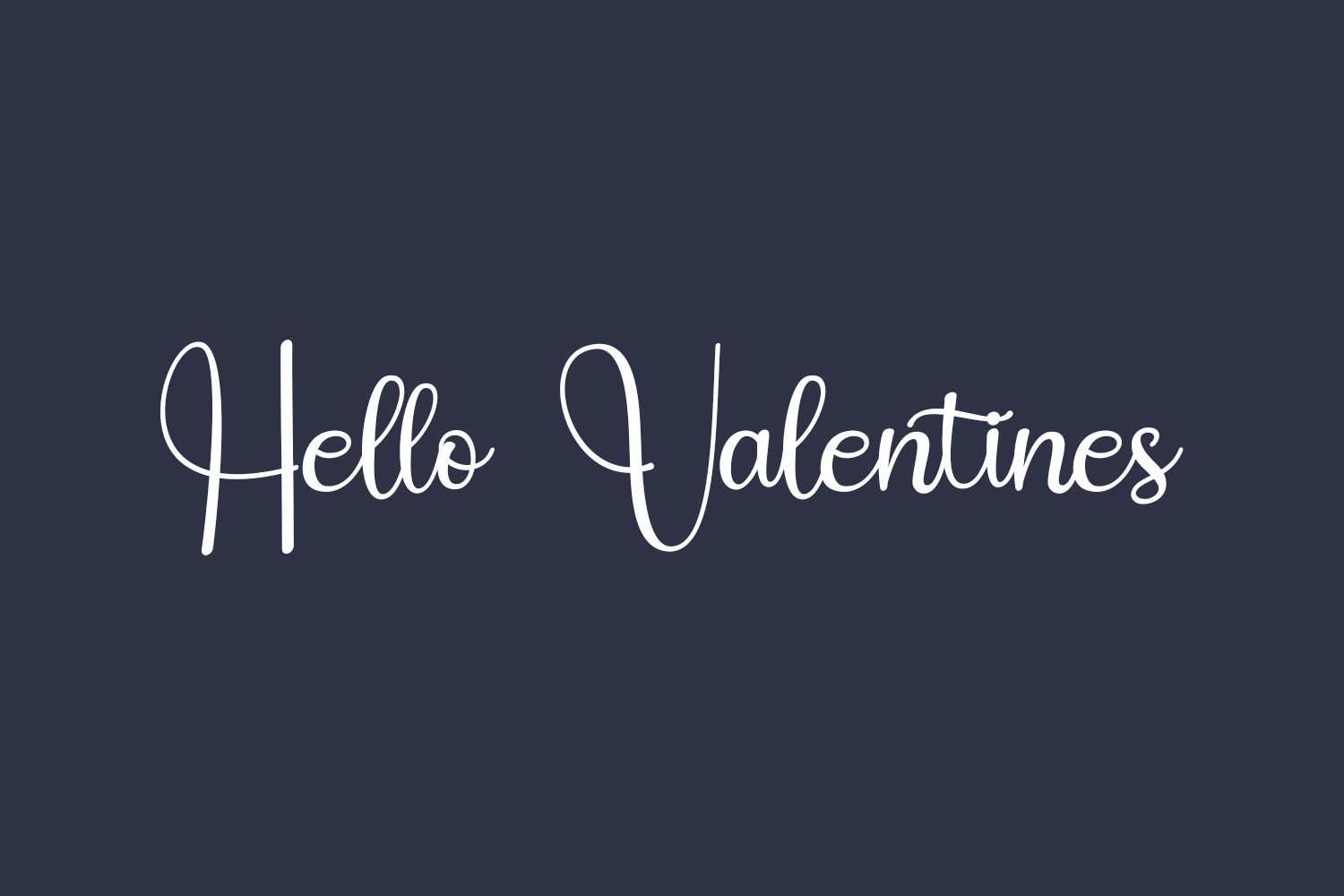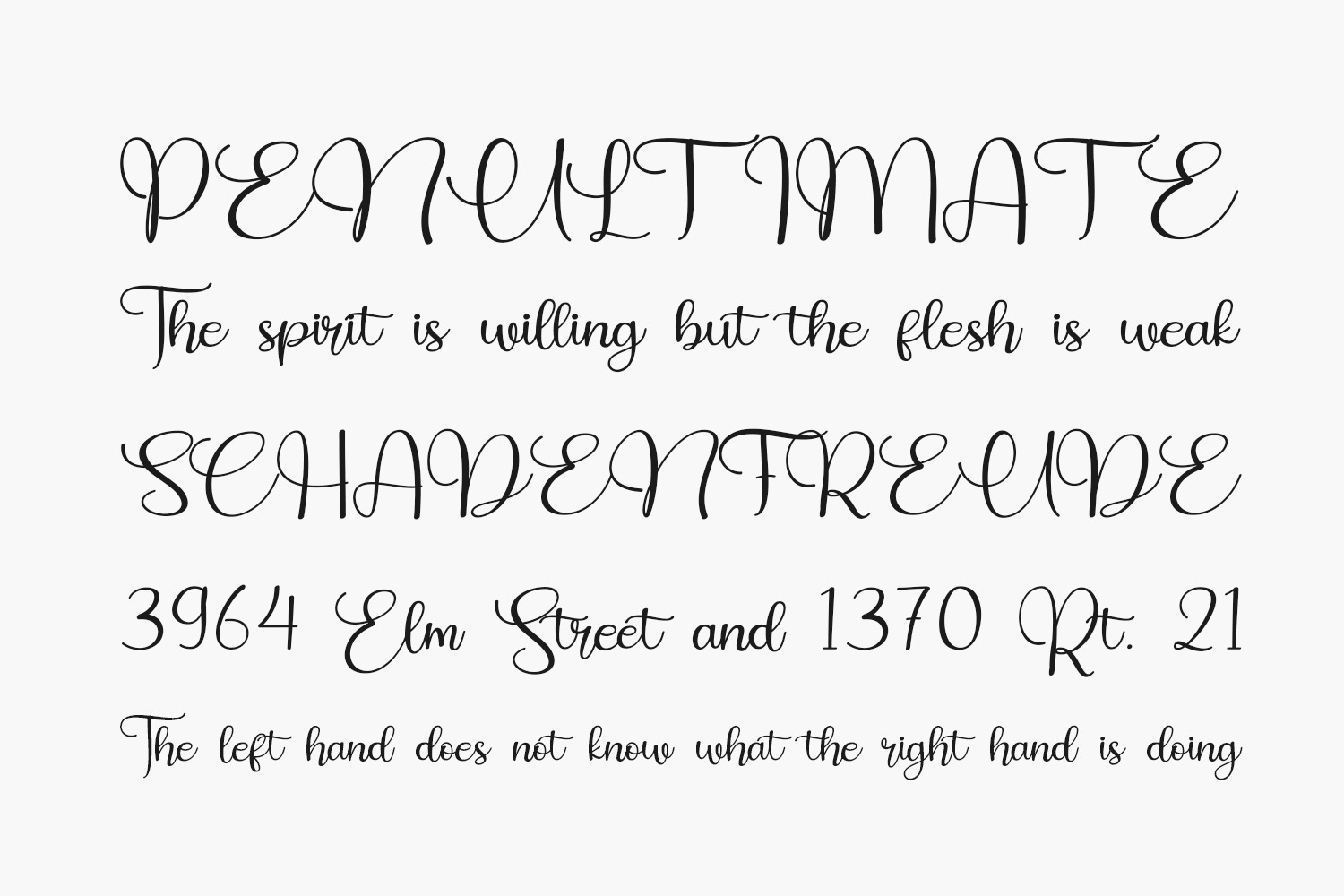
Hello Valentines Free Font is a cute handwritten font. Use it to make your ideas even more realistic and create spectacular designs. Hello Valentines Free Font was designed by Bearytype and is free for personal use only. Please purchase the full version for commercial use.